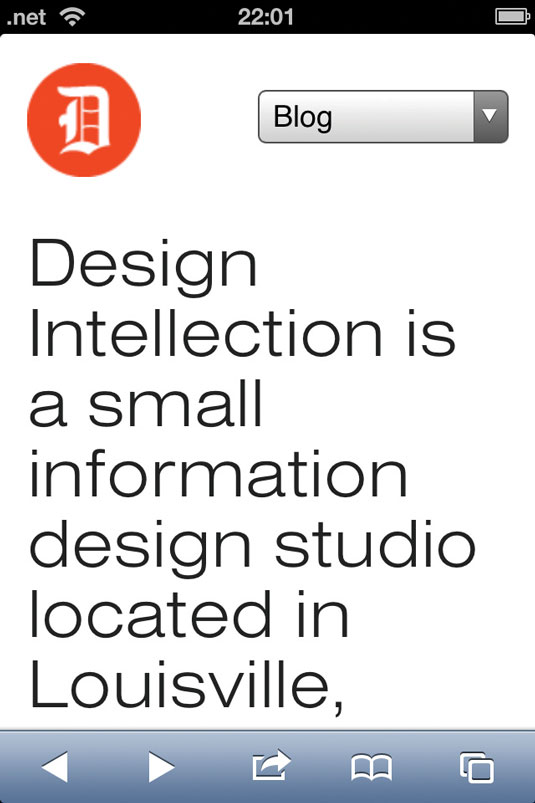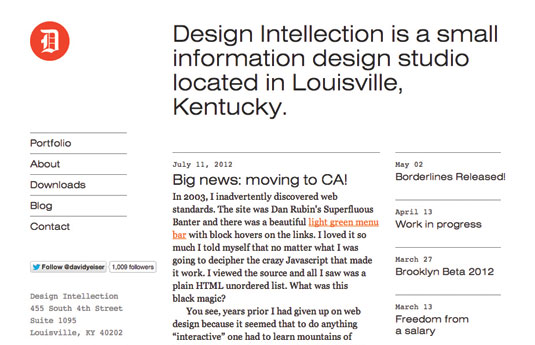
Agency site breaks rules with typeface mashup
The combination of fonts on Design Intellection's site shouldn't work - but somehow it does! We take a look at this typographically-focused site and how it works responsively.
Design Intellection is a small design studio that’s located in Louisville, Kentucky and run by David Yeiser.
Acting both as a portfolio of Yeiser’s work and as his personal blog, the Design Intellection website is a masterclass in achieving beauty through simplicity.
We’re huge admirers of its innovative blend of serif, sans serif, and monospaced typefaces, which works really effectively - even though it shouldn’t!
The studio was keen to make the site responsive - and wanted to get it right first time.
"Proper planning beforehand is paramount when it comes to the complexity of responsive design,” reflects Yeiser. "Of course, you can only plan so much - and at some point you have to jump in and see what works and what doesn’t as you build it."